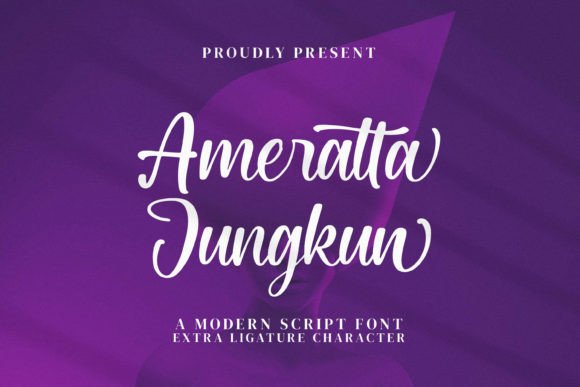
Unleash the allure and sophistication of Ameratta Jungkun, a calligraphy typeface that dances gracefully along the baseline, leaving a trail of elegance in its wake. Step into a world of timeless beauty, where letters flow effortlessly, intertwining to create a symphony of visual delight.
With its romantic and sweet disposition, Ameratta Jungkun adds a touch of luxury to every design project. Its characters, like delicate brushstrokes, pirouette and twirl, creating an aura of enchantment. Immerse yourself in the splendor of this font, and watch as your designs transform into masterpieces.
Indulge in the versatility of Ameratta Jungkun. Whether you're crafting wedding invitations that exude romance or designing logos that radiate charm, this font adapts seamlessly to your creative vision. Its inherent elegance adds a touch of sophistication to any project, making it the perfect choice for those seeking a font that speaks volumes.
Ameratta Jungkun is more than just a font; it's an artistic expression that elevates your designs to new heights. Its graceful curves and delicate details captivate the eye, leaving a lasting impression that resonates with your audience. Embrace the beauty of Ameratta Jungkun, and let your creativity soar.